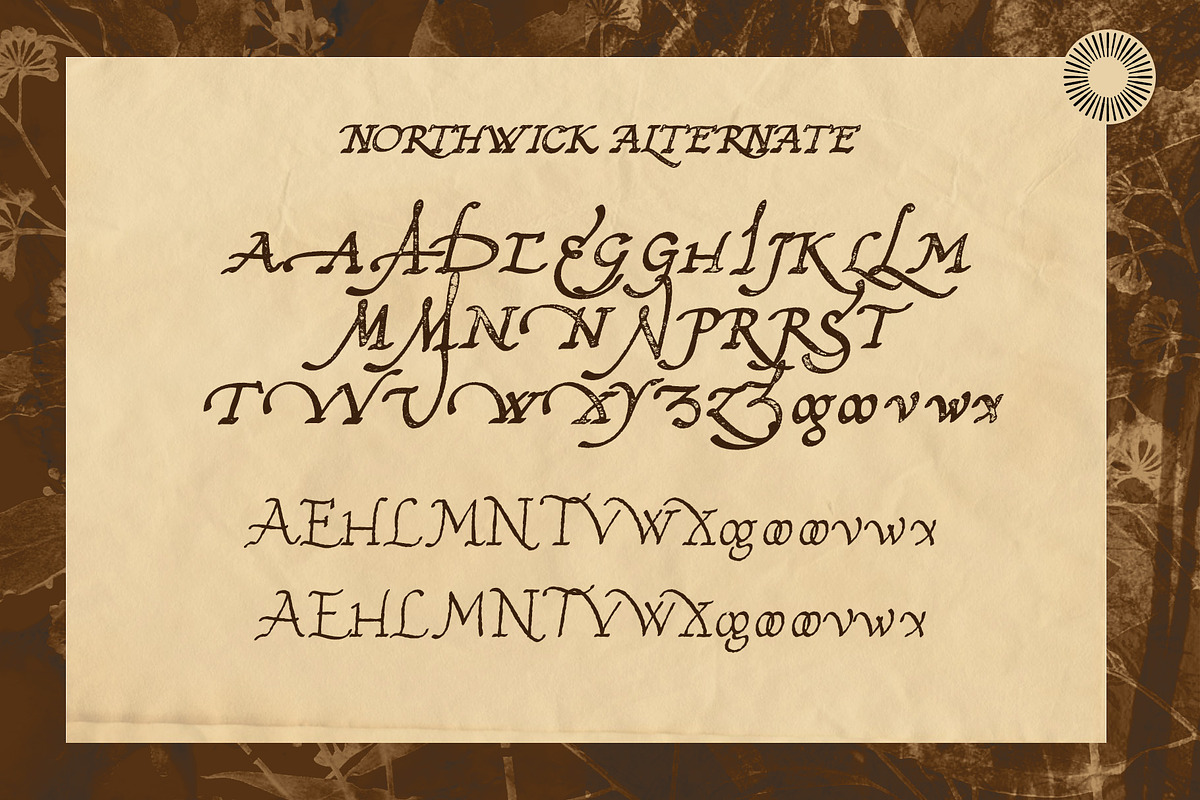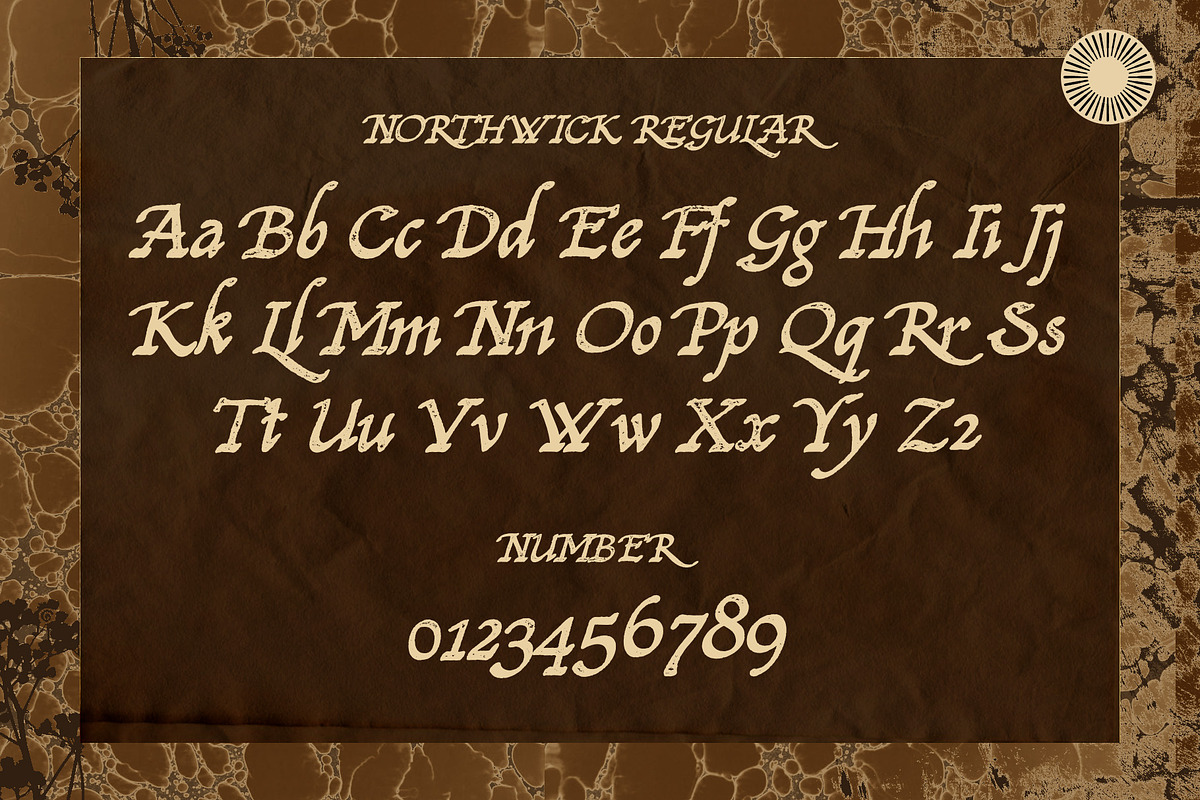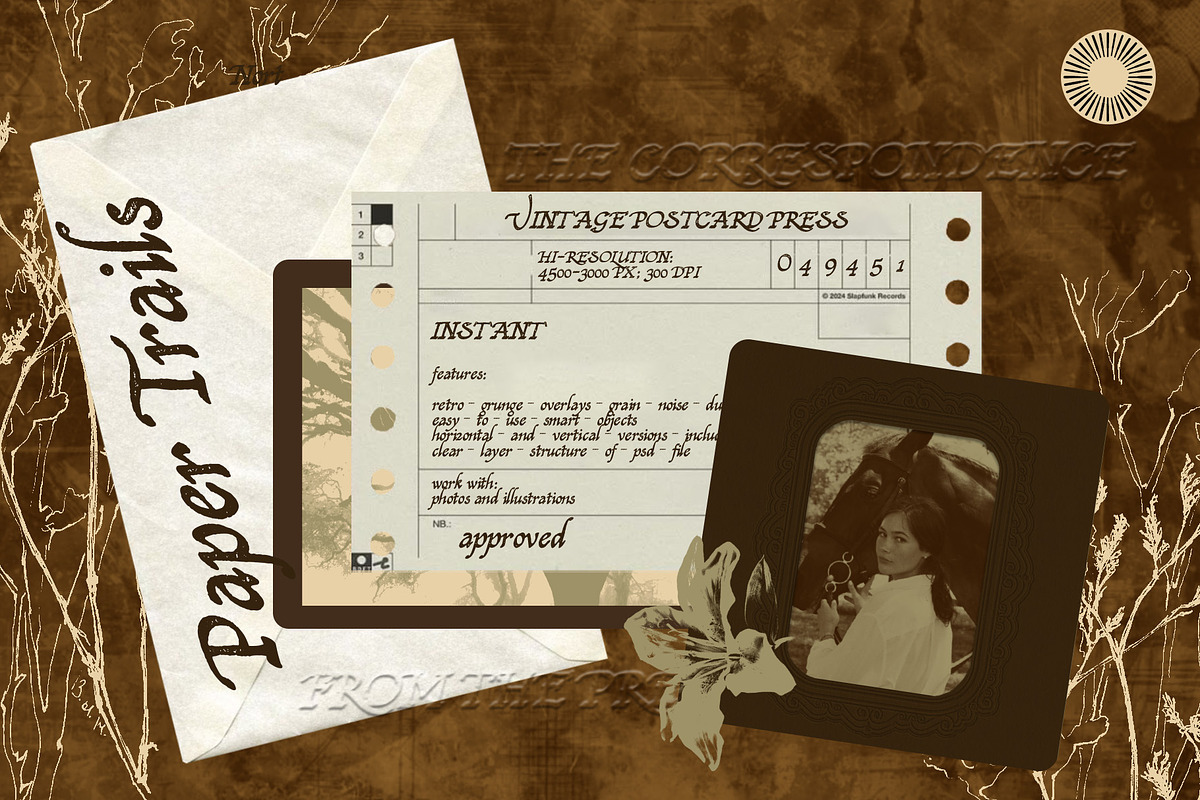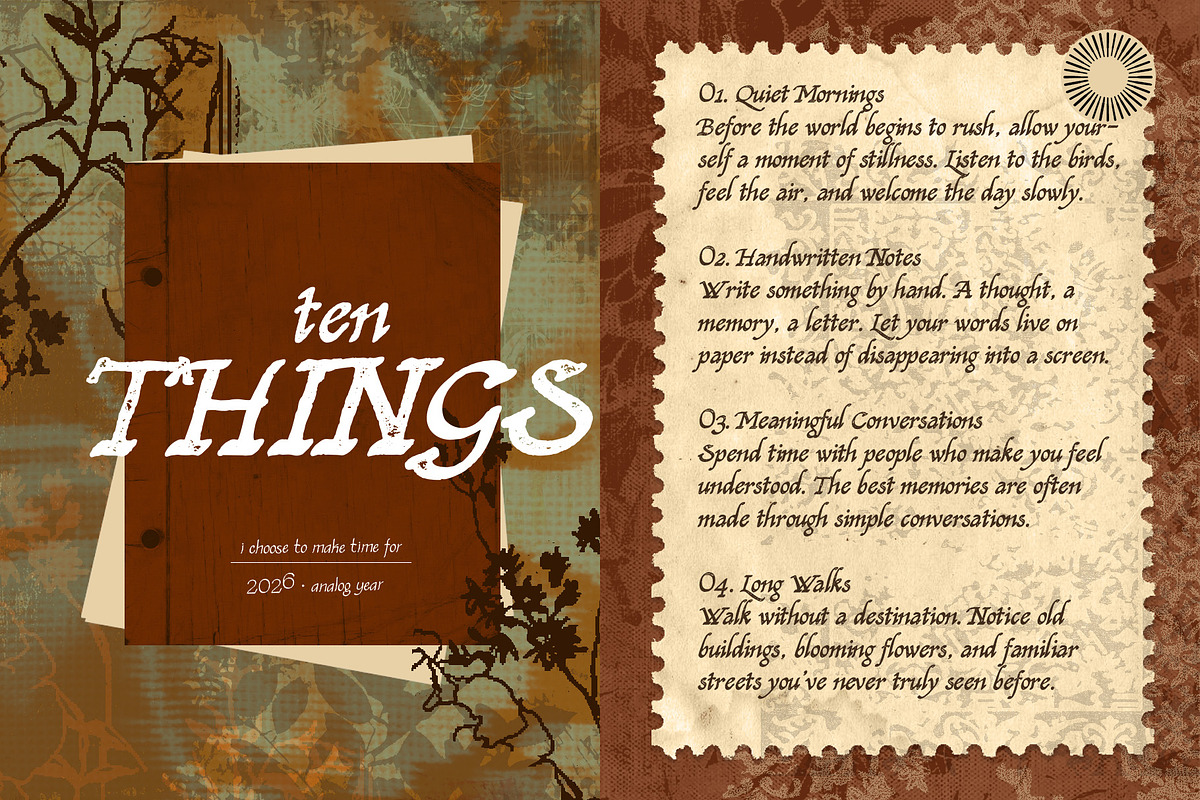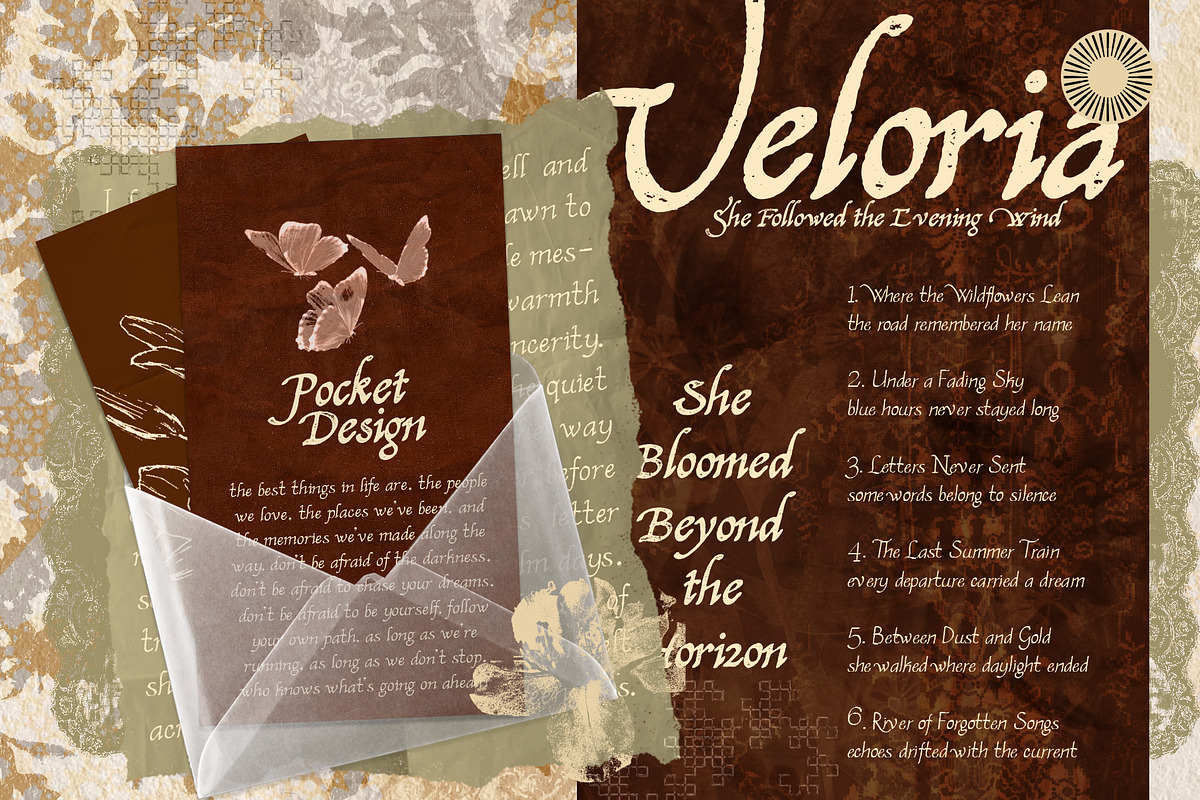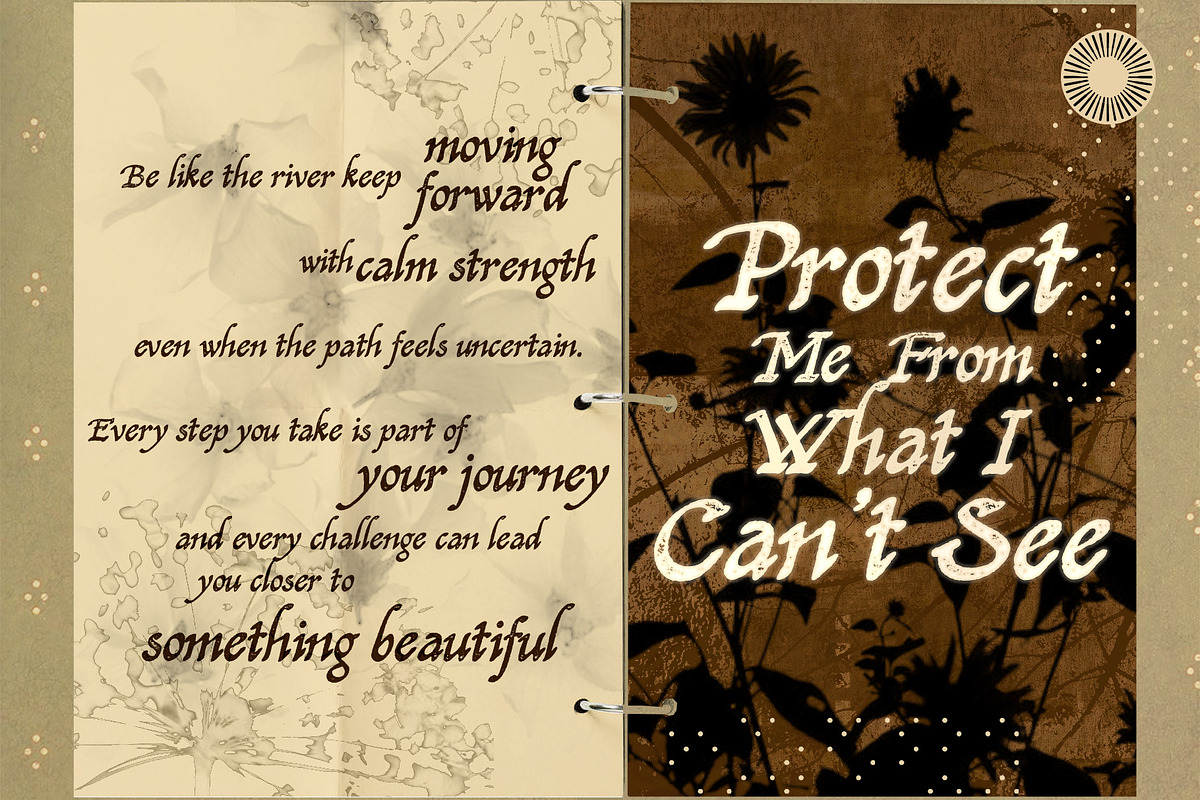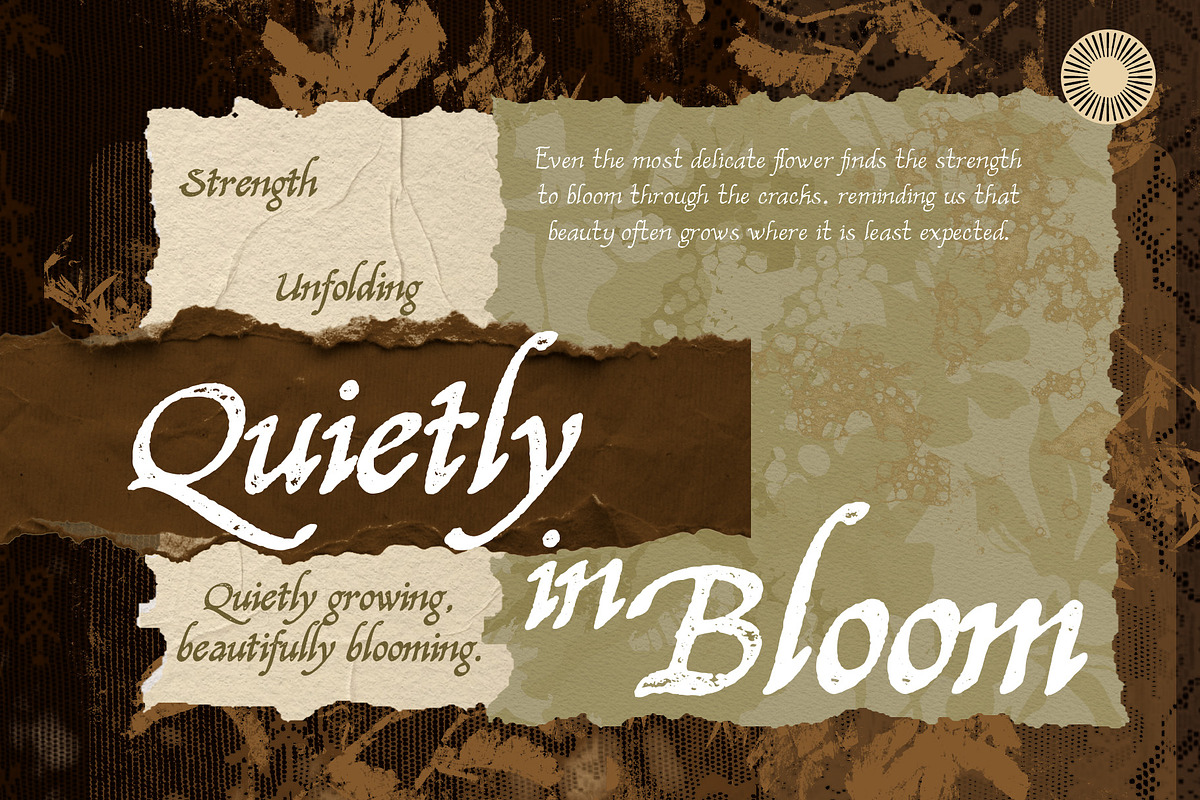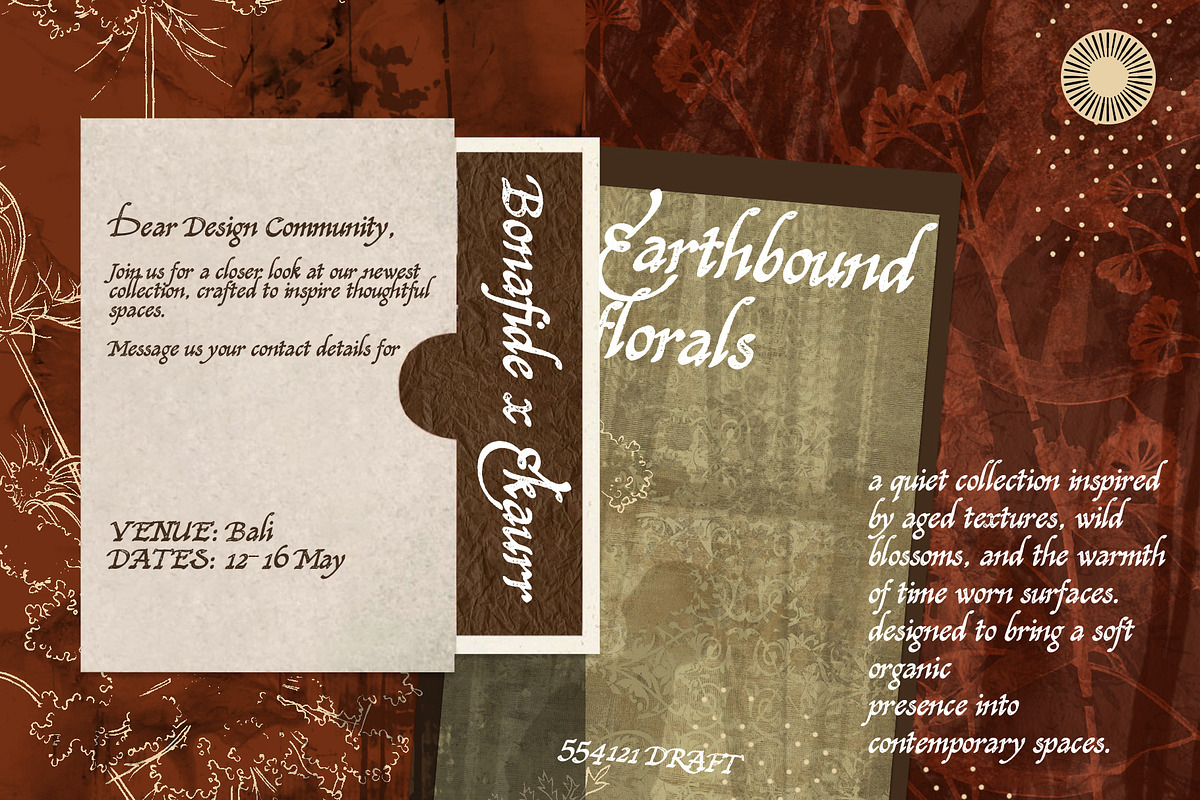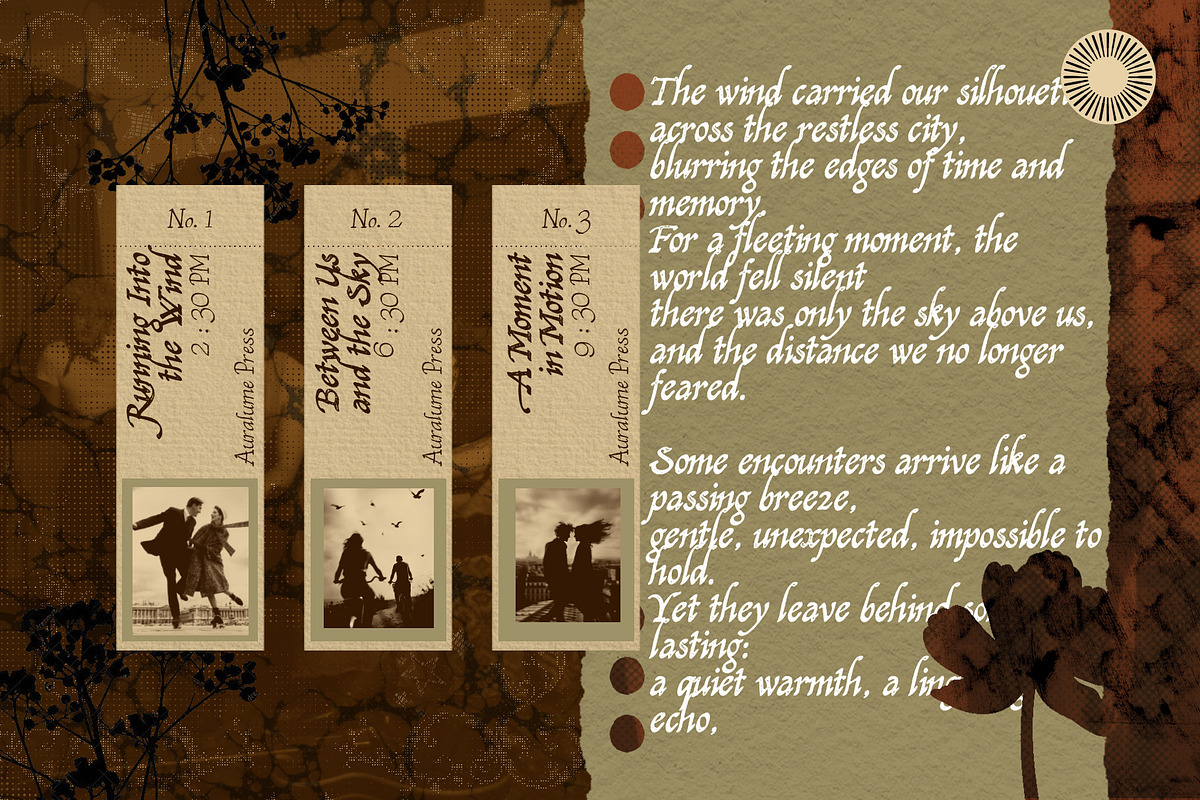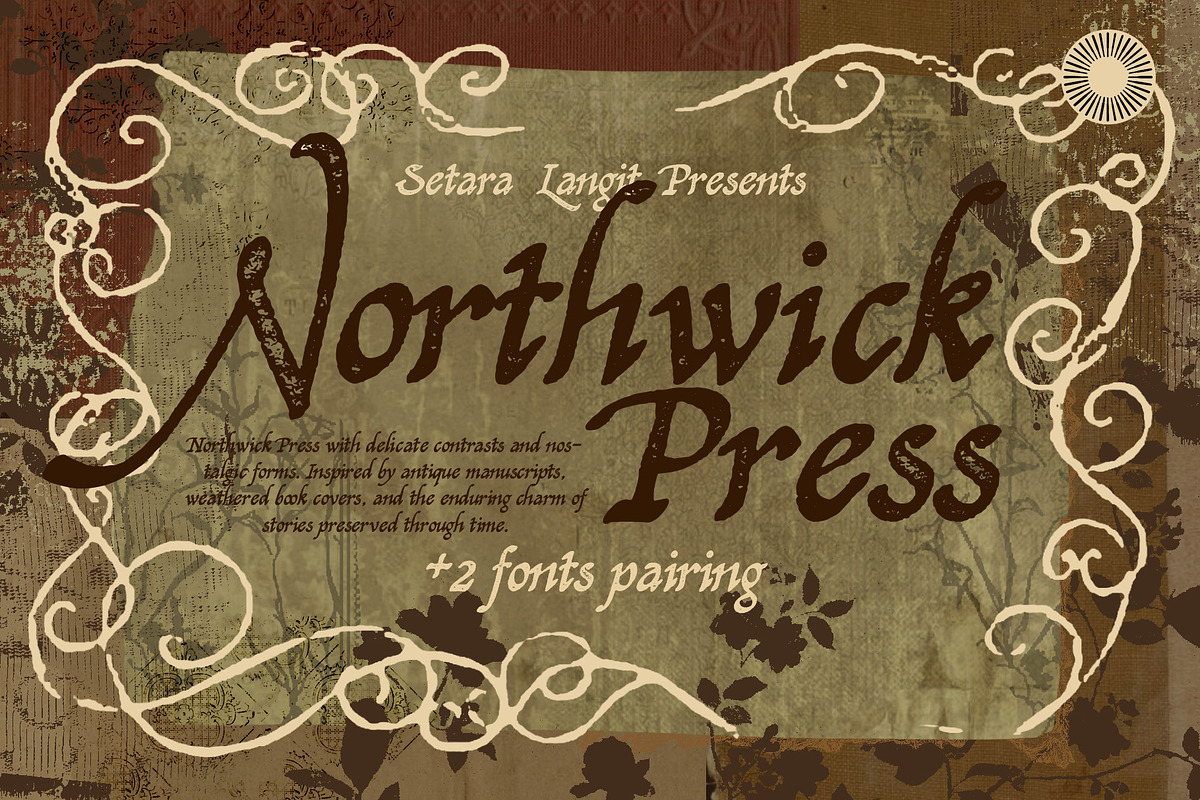
Northwick Press - Heritage In Print
Northwick Press is a vintage font duo inspired by antique printing presses, weathered book covers, and timeless editorial typography. Combining a bold expressive script with a refined companion font, it captures the charm of classic publishing while remaining versatile for modern design.
Designed with subtle contrasts and nostalgic character, Northwick Press brings the warmth of historic manuscripts and traditional letterpress printing into contemporary branding. The pairing creates elegant typography that feels authentic, literary, and enduring.
Whether you're designing book covers, artisan packaging, café branding, or editorial layouts, Northwick Press delivers a distinctive vintage aesthetic with timeless appeal.
Vintage font duo
Expressive script + companion font
Inspired by antique letterpress printing
Editorial and publishing aesthetic
Elegant ligatures & alternates
Book covers, editorial design, branding, cafés, restaurants, packaging, stationery, artisan products, publishing, magazines, logos, invitations, posters, and heritage-inspired projects.